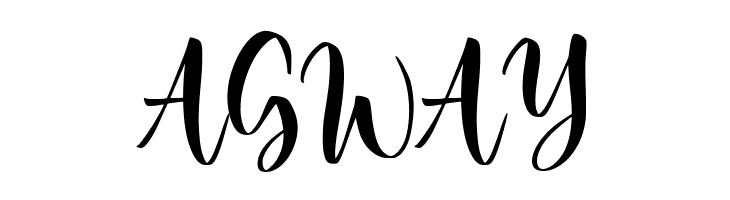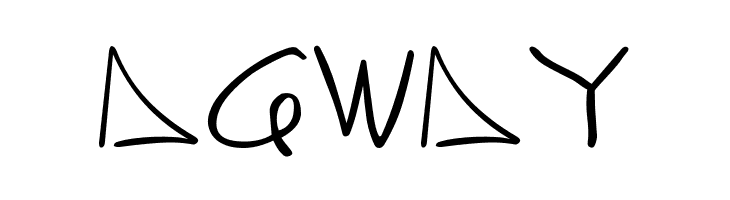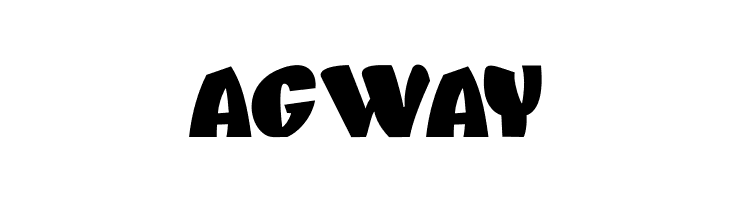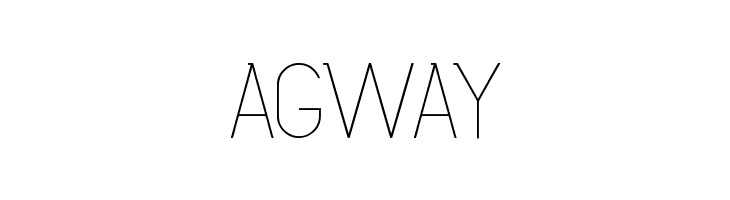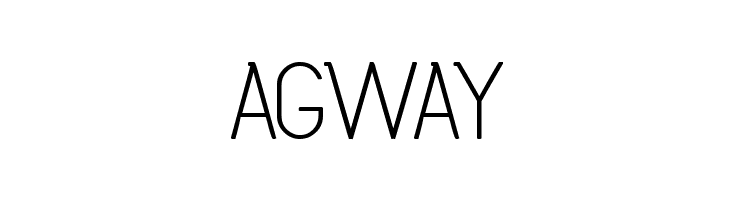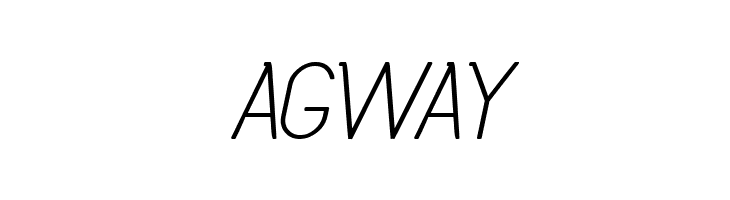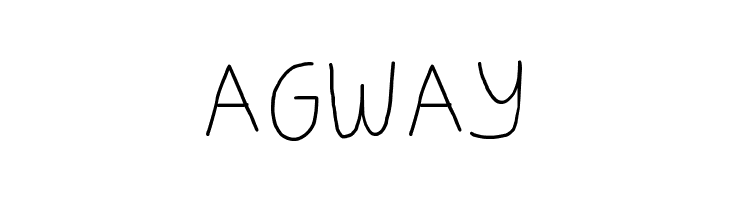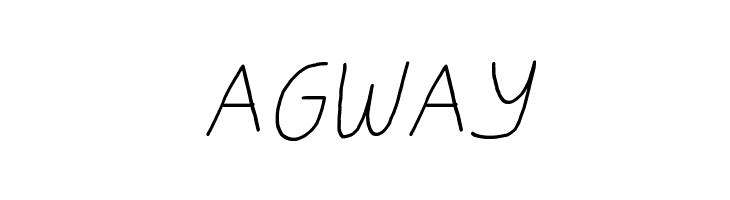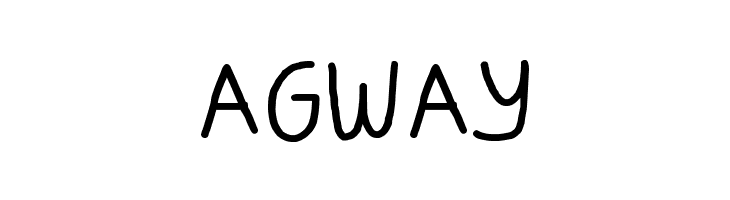
• Daniel's Handwriting
A casual, handwritten font with a personal touch.
• Daniel's Handwriting Bold
A casual, handwritten font with rounded, consistent strokes.
• Daniel's Handwriting Bold Italic
A bold, italic handwritten font with a casual and personal style.
• Daniel's Handwriting Italic
A casual, handwritten-style font with an italic slant and consistent stroke width.
• Daniela
A sleek, modern font with thin, elongated characters and a minimalist design.
• Daniela
A modern, geometric font with thin, uniform lines and a clean aesthetic.
• Daniela Bold
A modern, geometric font with consistent stroke width and a sleek appearance.
• Daniela Bold
A clean, geometric sans-serif font with consistent stroke widths and a modern aesthetic.
• Daniela Charming
A playful and charming handwritten script font with fluid, connected letters.
• Daniela Italic
A sleek, elegant italic font with thin, elongated letterforms and a modern aesthetic.
• Daniela Italic
A sleek, modern italic font with thin, elongated characters.
• Daniela Italic Bold
A modern, bold italic font with sleek, elongated characters.
• Daniela Italic Bold
A sleek, italicized font with a modern and elegant style.
• DanielDavis
An elegant, flowing script font with graceful curves and decorative flourishes.
A bold, playful handwritten font with rounded strokes and a lively appearance.
• Daniella
A cursive, handwritten-style font with elegant, flowing characters.
• Daniella
A flowing, cursive font with a handwritten style and moderate stroke contrast.
• Danielle Harris DEMO Regular
A classic serif font with elegant strokes and a refined appearance.
• Danielles
A playful, handwritten cursive font with smooth, flowing lines.
• Daniels Signature
A fluid, elegant script font that mimics a handwritten signature.
• DanielScript
A bold, cursive script font with fluid, expressive strokes.